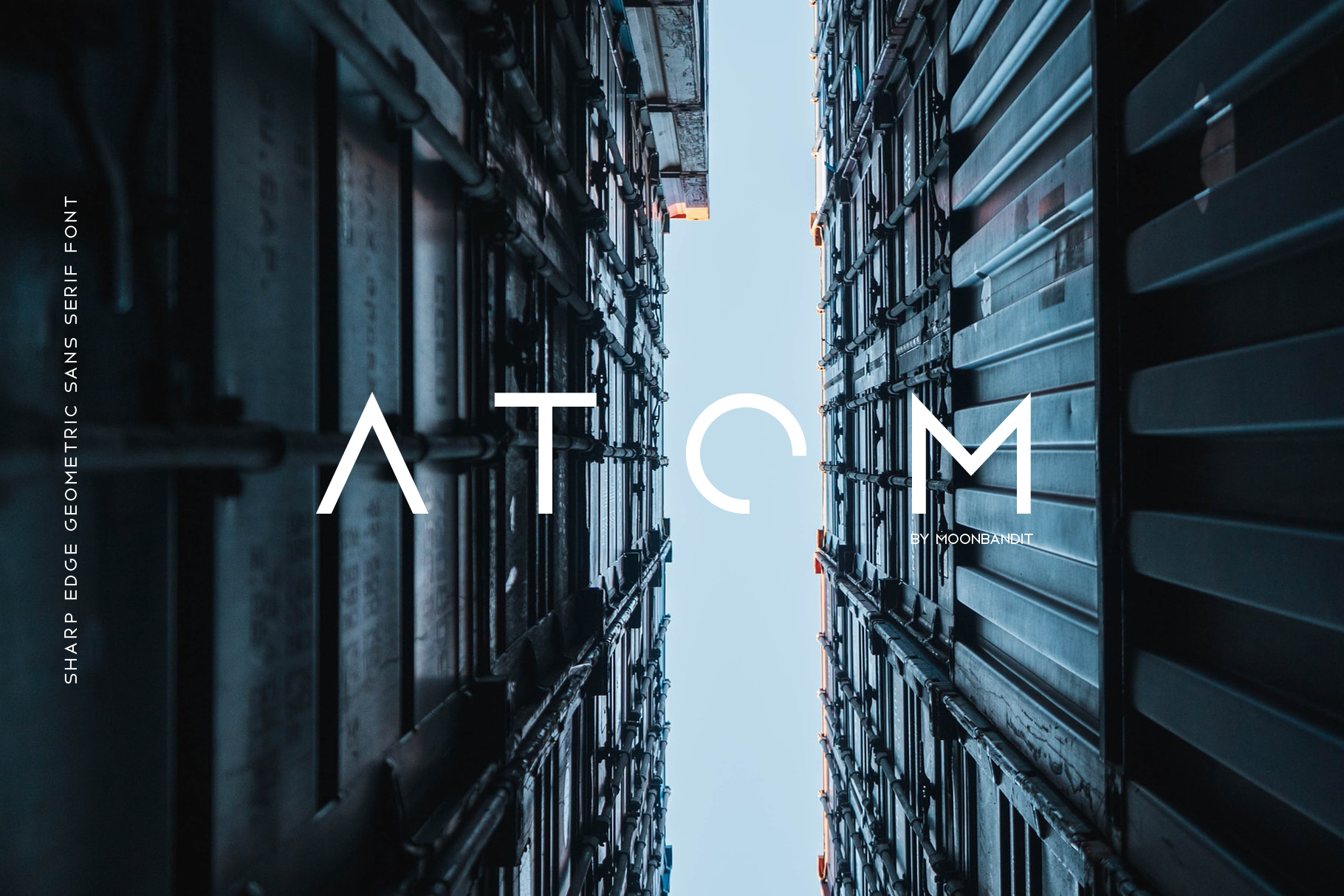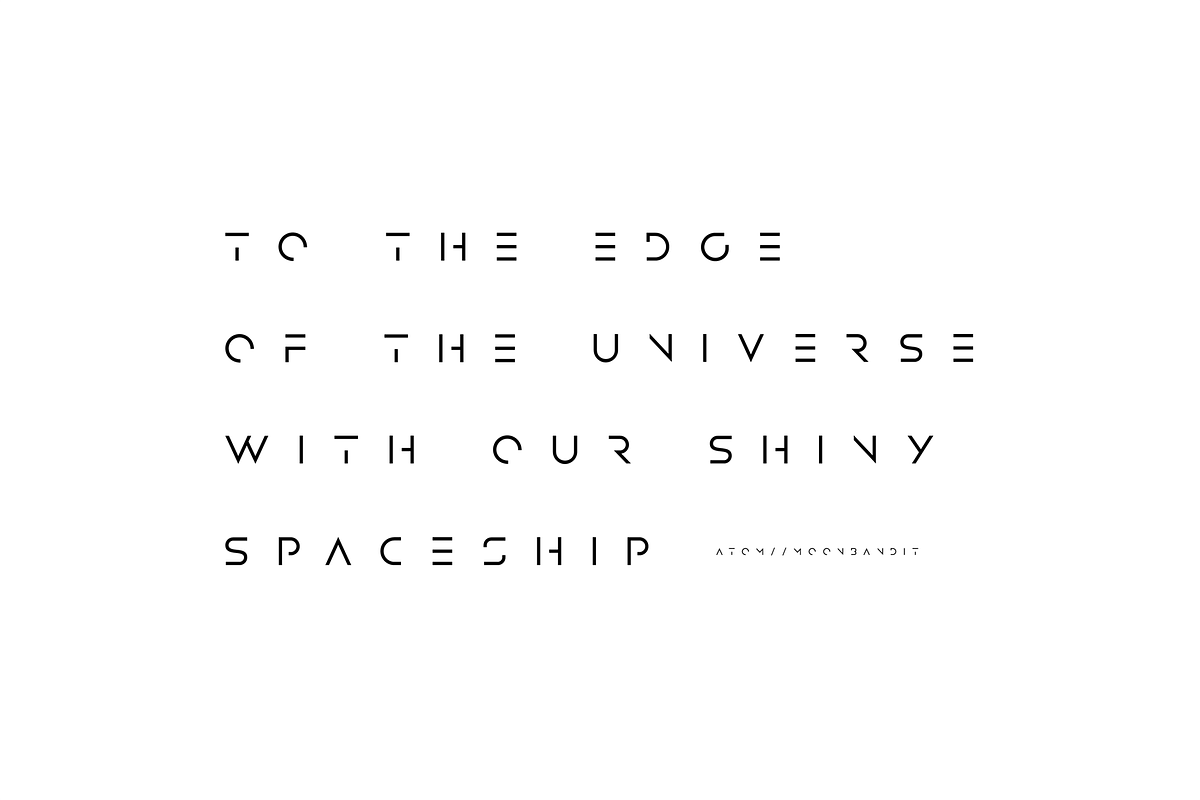
Atom - Sharp edge Future Scifi font
Atom is a new generation of an all caps futuristic sans serif font. Thin geometric lines with sharp edges to ensure a striking exposure. Perfect for display, logotype, headline, and many more. Easy to use, simply manage the lowercase to acquire the alternative glyphs.